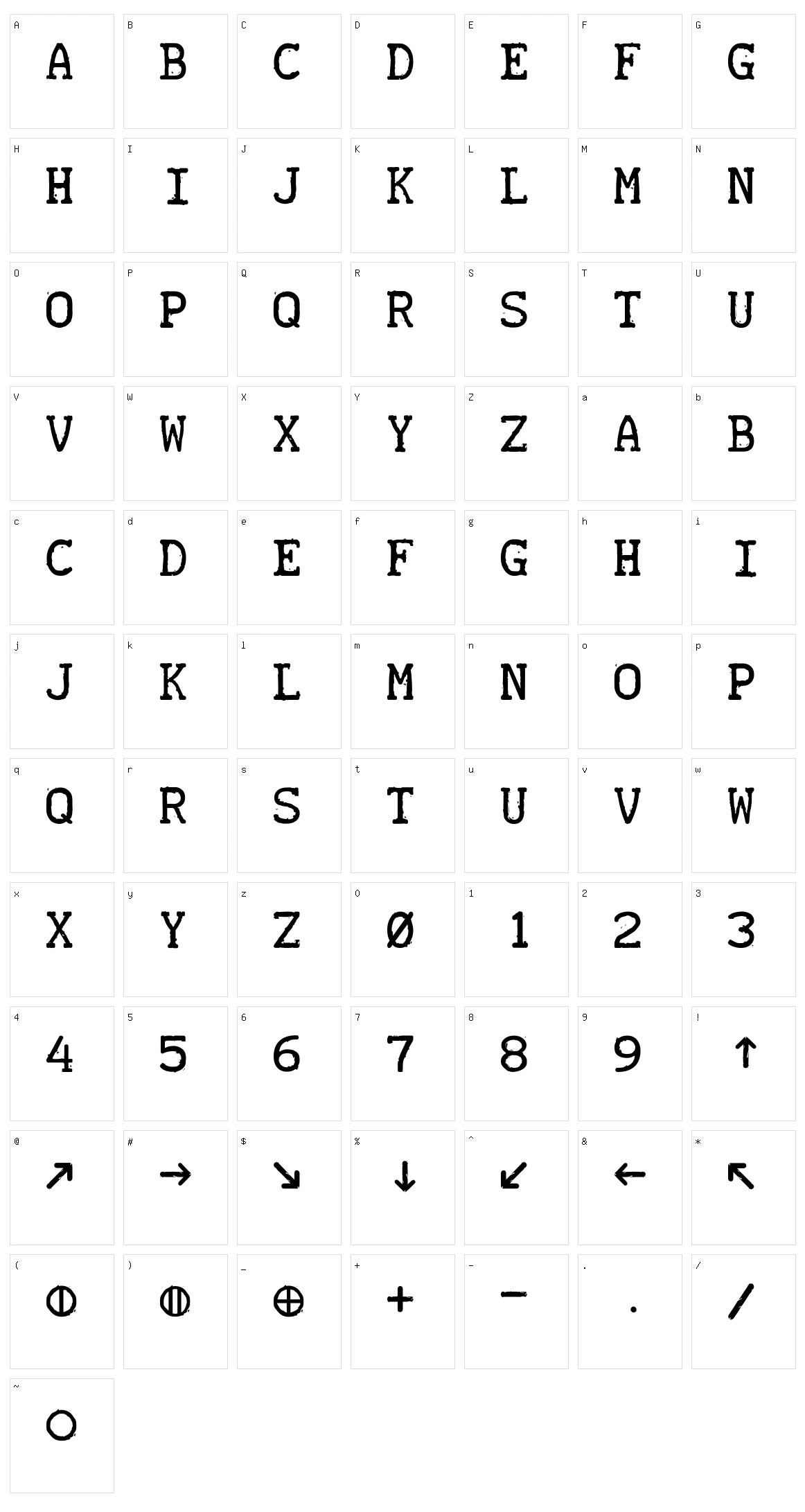
The free font Teletype 1945-1985 is carefully designed by "E.V." Norat II, showcasing a thoughtful balance of creativity and usability and falls under the Typewriter font style. When you download the ZIP file, it contains only 25.88 KB of font files, making it lightweight and quick to download. Please review the license details below to understand permitted usage and distribution rights. If license information is not available, we recommend using this font for personal projects only or contacting the author directly for commercial usage permissions.